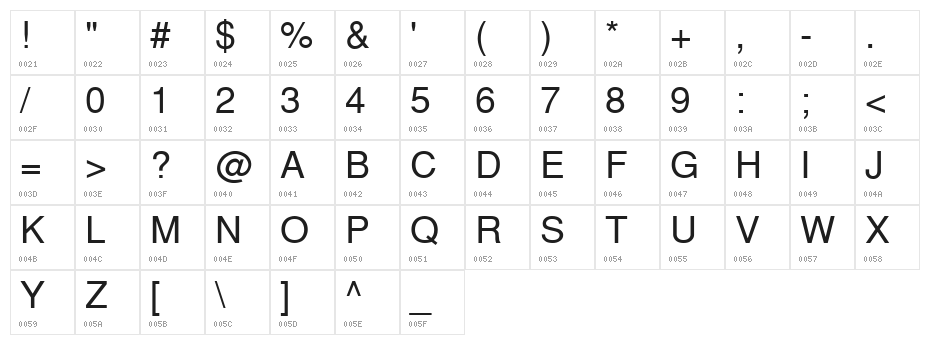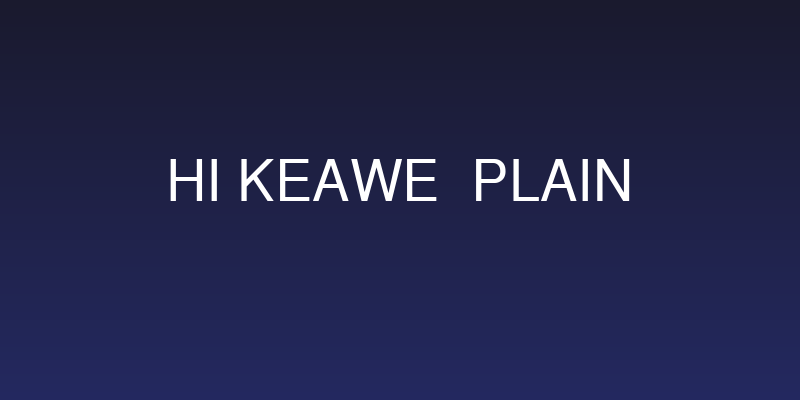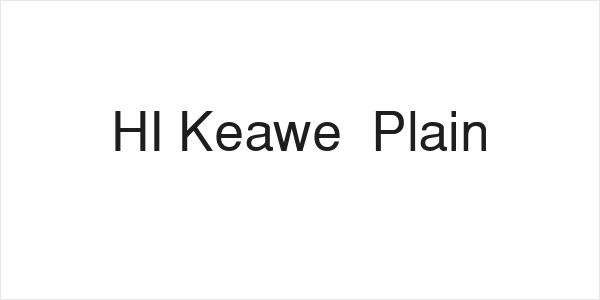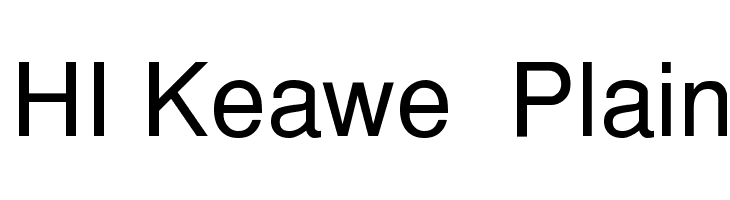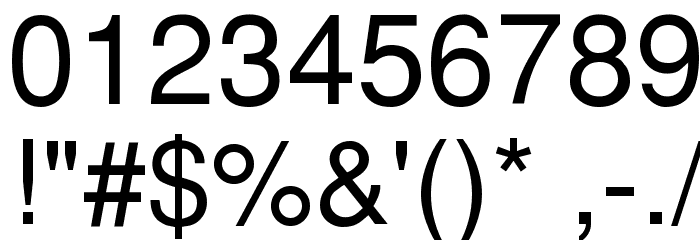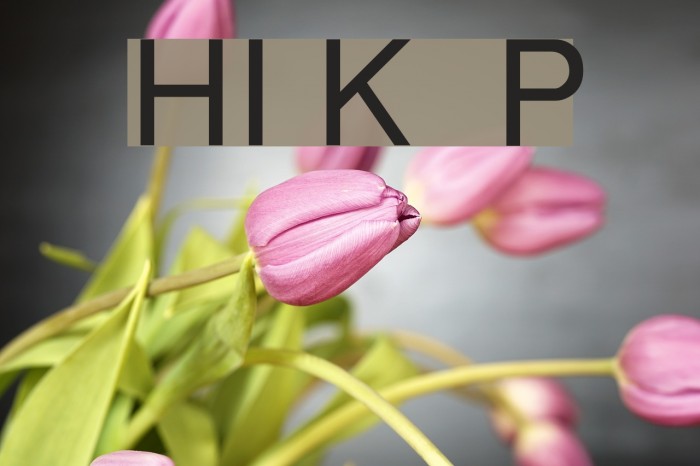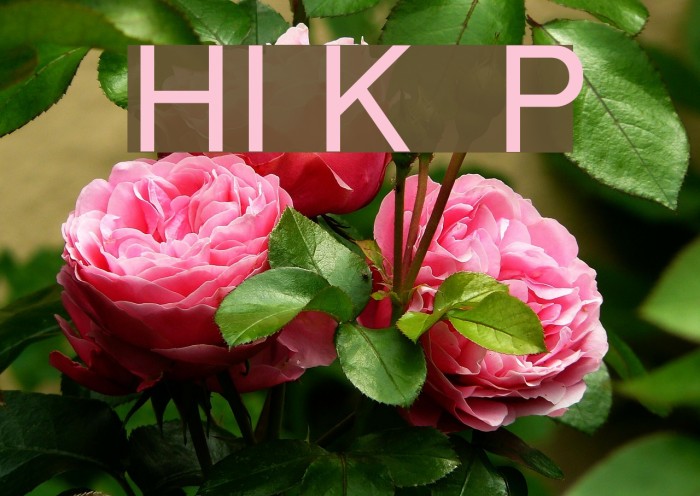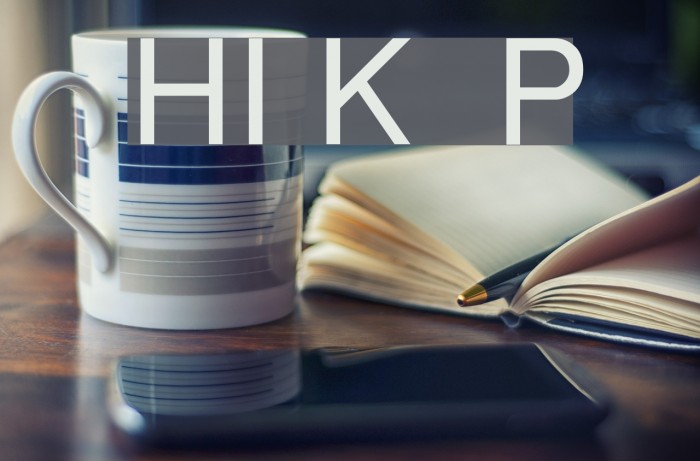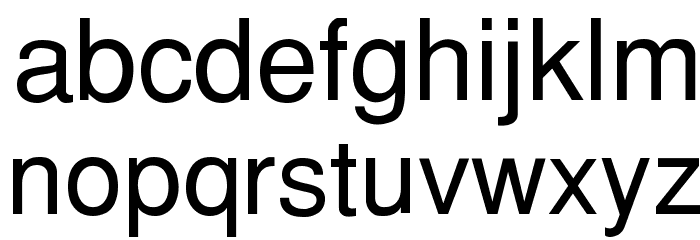
HI Keawe Plain Font
HI Keawe Plain Description
This font features a clean and modern sans-serif design with uniform stroke widths, providing a sleek and professional appearance. The characters are well-proportioned with a consistent baseline, making it highly legible across various sizes. The uppercase letters are bold and commanding, while the lowercase letters maintain a balanced and approachable look. The numerals are clear and distinct, ensuring readability in numerical data. Special characters are included, enhancing its versatility for different types of content. Overall, this font is ideal for contemporary design projects that require clarity and simplicity.
| Use Case | Headlines, Body text, Logos |
| Proposed Projects | Ideal for corporate branding, web design, user interfaces, and print media. |